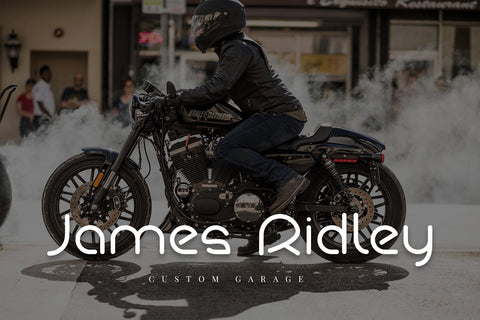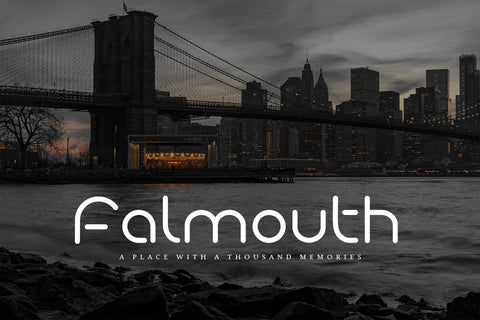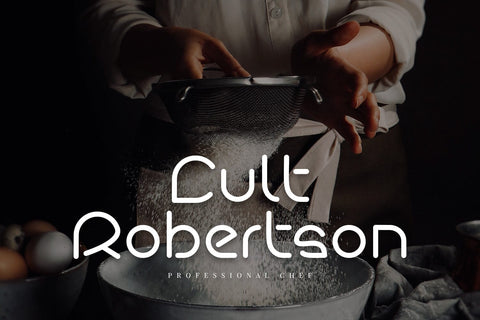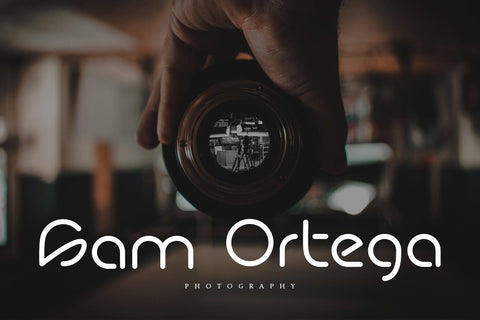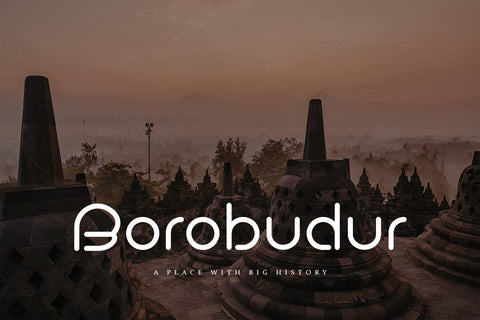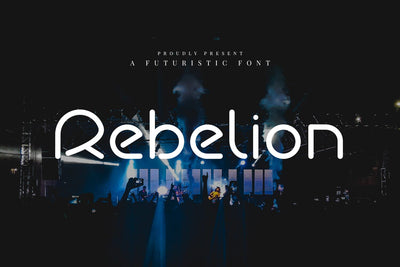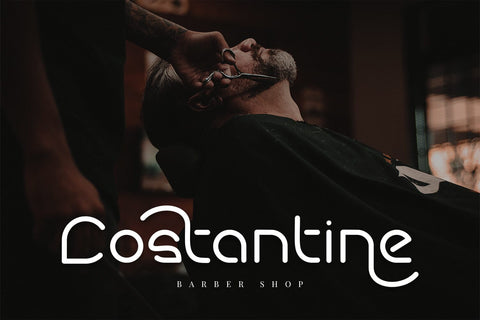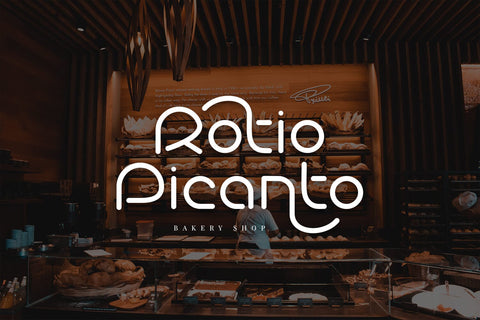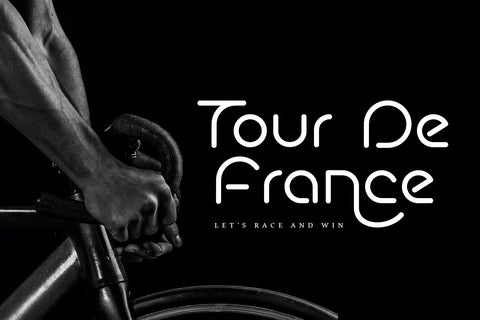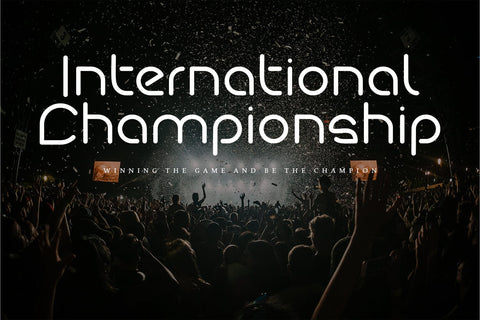
Rebelion - Futuristic Font
Rebelion is a futuristic font with authentic and modern feels. It will be perfectly used for Branding, Logo Design, Lettering, Logotype, Clothing, Poster, magazine, packaging, posters, shopping bags, t-shirts, book covers, photography, special events and other design project.